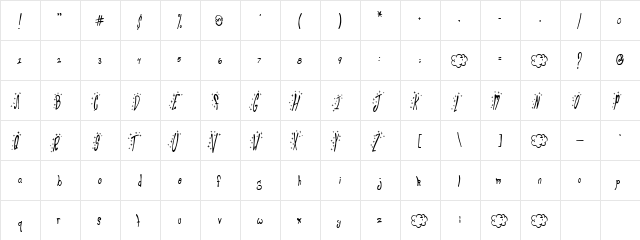
Club Fluffy Regular
Design Context for Club Fluffy Typeface
Club Fluffy is a composed and adaptable typeface that performs quietly and consistently across a wide range of design contexts.